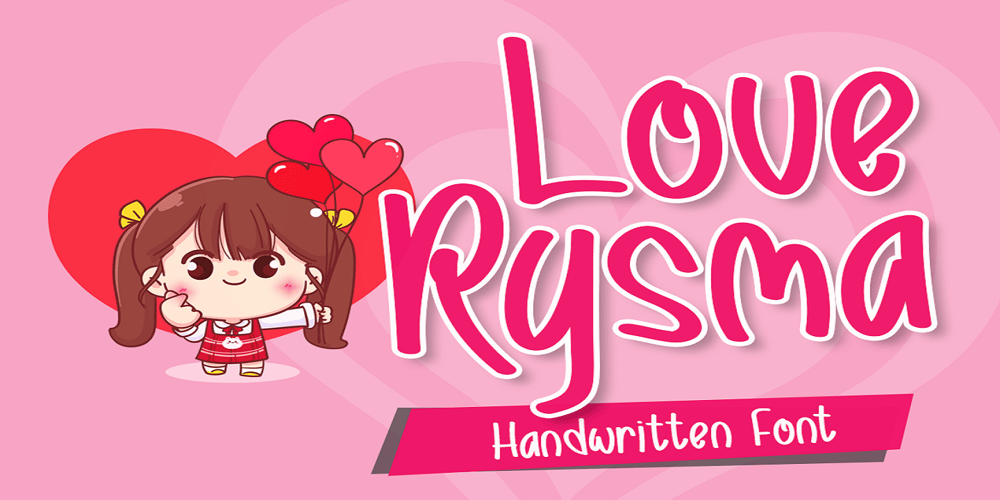
Love Rysma Font Family was designed by Saiful Anwar and published by Sealoung. Love Rysma contains 1 styles and family package options. Love Rysma is a stylish brush font with natural movement that looks casual, stylish, and colorful. This font is perfect for kids designs, easter, baby branding, diapers, watermarks, social media posts, product design, labels, stationery, advertisements, logos & branding, designs, product packaging, special events, or anything else. requires a handwritten feel.What’s Included:- Glyphs- Works on PC & Mac- Simple installation- Can be accessed in Adobe Illustrator, Adobe Photoshop, Affinity Design.- Fonts include multilingual support.